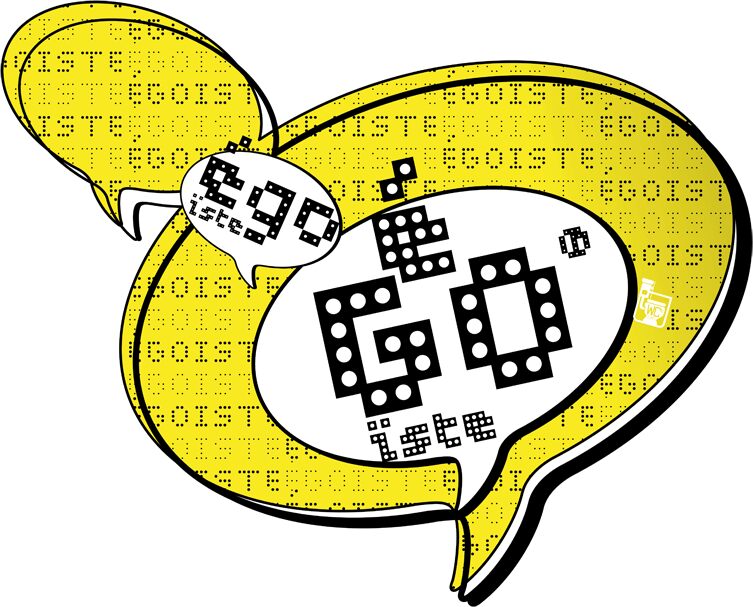
WC PIXHOLE Bta Thin by WC Fonts is a free non-Latin script-style display font with a sparse dot-matrix treatment. Widely spaced round marks create airy skeletal forms, and shifting heights give the lettering an irregular electronic pulse.
Retro digital styling suits experimental music posters, game interfaces, and technology event graphics, especially when the type becomes part code and part image. It targets designers seeking a cryptic low-fi electronic accent for youth and club culture.